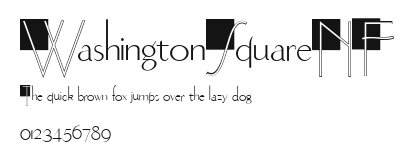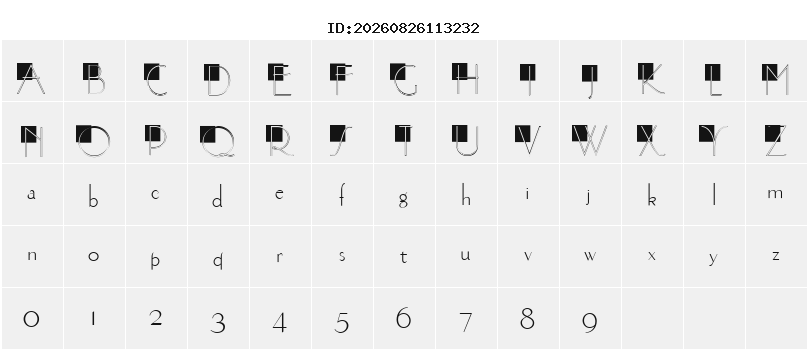
WashingtonSquareNF Preview
About WashingtonSquareNF.ttf
WashingtonSquareNF.ttf is a modern, elegant sans-serif font designed for ultimate readability and visual harmony. Perfect for branding, headlines, web design, and print materials.